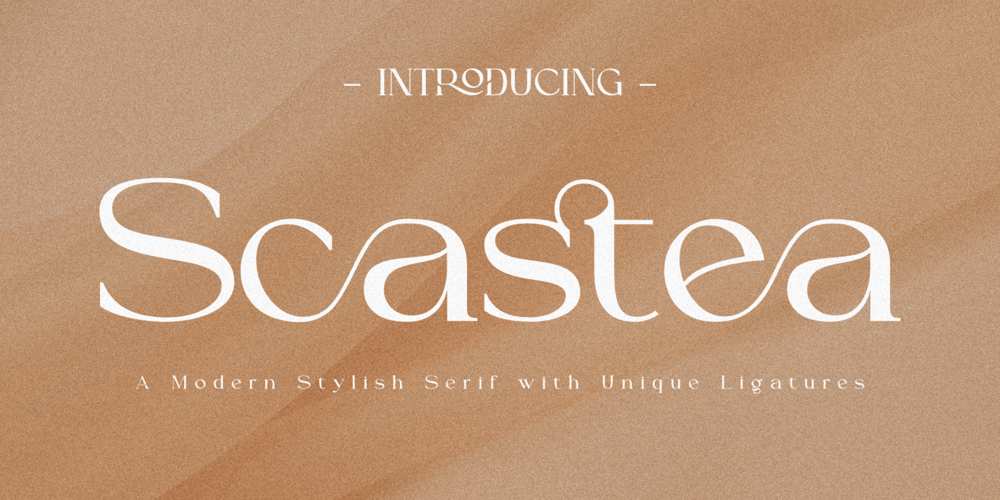
Scastea
Scastea font
Scastea Font Family was designed by Andri Ardianto and published by Madatype Studio. Scastea contains 1 styles and family package options. Scastea is a modern stylish Serif font that will make your designs stand out from the crowd. This font features unique ligatures and alternates that add elegance and flair to your texts. Whether you are looking for a font for fashion and beauty designs, logos, headlines, posters, magazines, or any other creative project, Scastea will give you the perfect look.Scastea is easy to use and customize. You can access the ligatures and alternates through OpenType features or by using a glyphs panel. You can also mix and match the uppercase and lowercase letters to create stunning combinations. Scastea comes with a full set of characters, including numbers, punctuation, symbols, and multilingual support.Scastea is more than just a font. It is a statement of style and sophistication. It is a font that will impress your audience and elevate your brand. It is a font that you will love to use and enjoy. Download Scastea today and discover the beauty of this modern stylish Serif font.